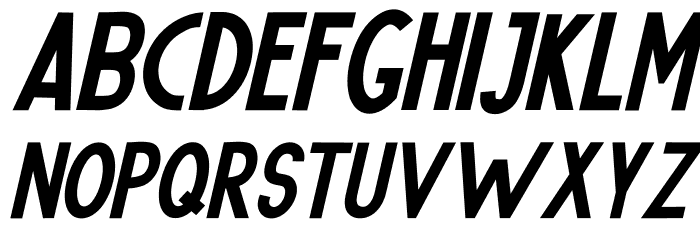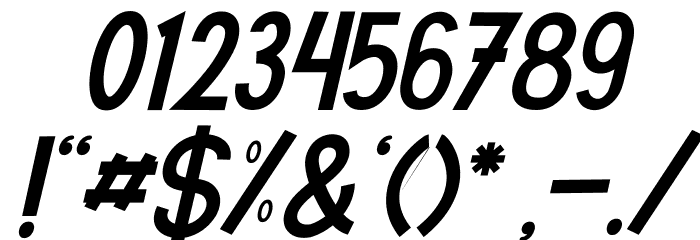
Roberto Italic Font
This font features a dynamic and modern italic style with a forward-leaning slant that conveys a sense of motion and energy. The characters are bold and well-defined, with smooth curves and sharp angles that create a sleek and contemporary appearance. The uppercase and lowercase letters maintain a consistent style, with a slight variation in stroke thickness that adds visual interest. The numerals are clear and legible, matching the overall aesthetic of the alphabet. Special characters are included, each designed to complement the font's overall style, making it versatile for various design needs.
A modern italic font with bold, dynamic strokes and a sleek appearance.
- Font: Roberto Italic
- Proposed Projects: Ideal for branding, advertising, and editorial design projects that require a modern and energetic look.
- Use Case: Headlines, Logos, Branding